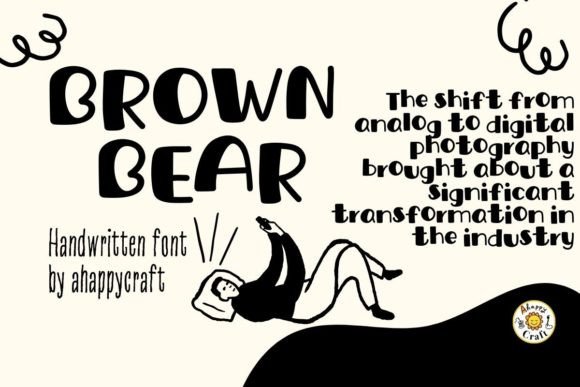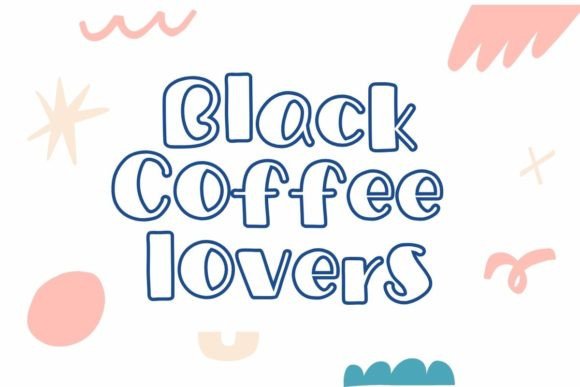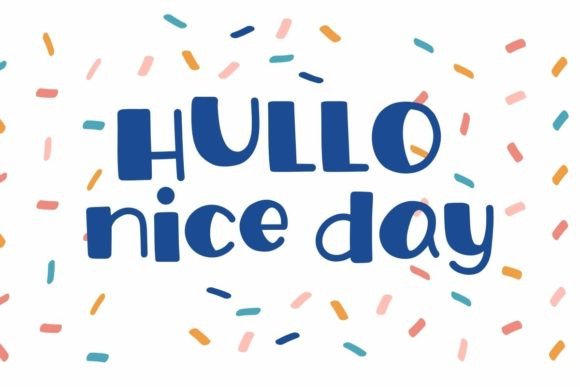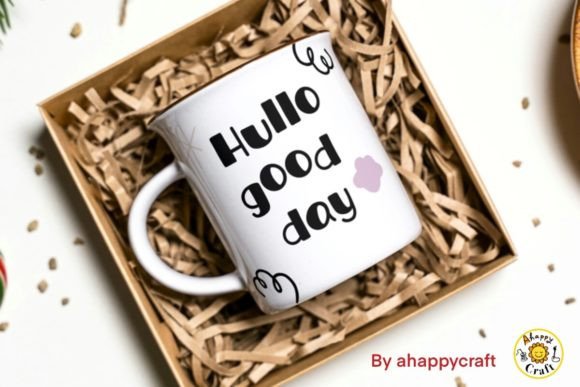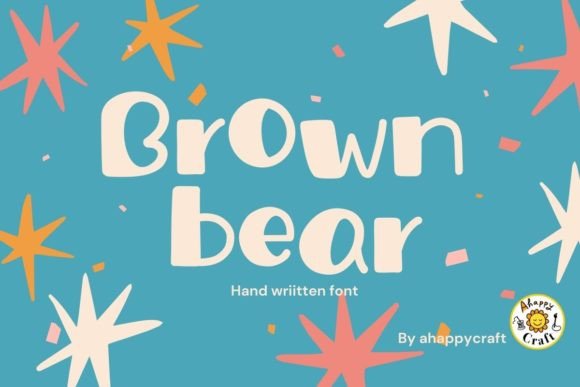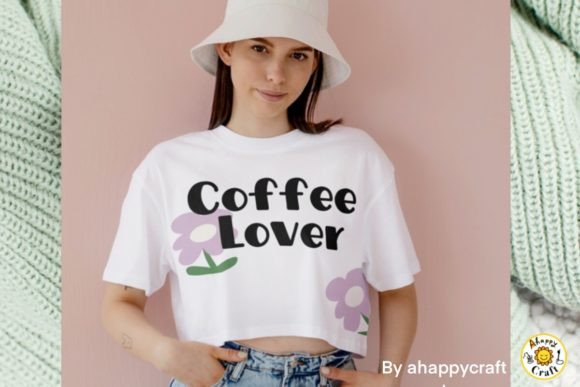
Introduction to Brown Bear Font
Introducing “Brown Bear,” a charming handwritten display font that exudes cuteness with a modern handmade touch.
With a delightful graphic handwritten style, this font boasts a freehand aesthetic, encompassing all English alphabets, numbers, and symbols Perfect for infusing a playful and endearing vibe into your Christmas projects, musical art endeavors, or as a cool alphabet to print on your t-shirts.
Key Features of Brown Bear Font